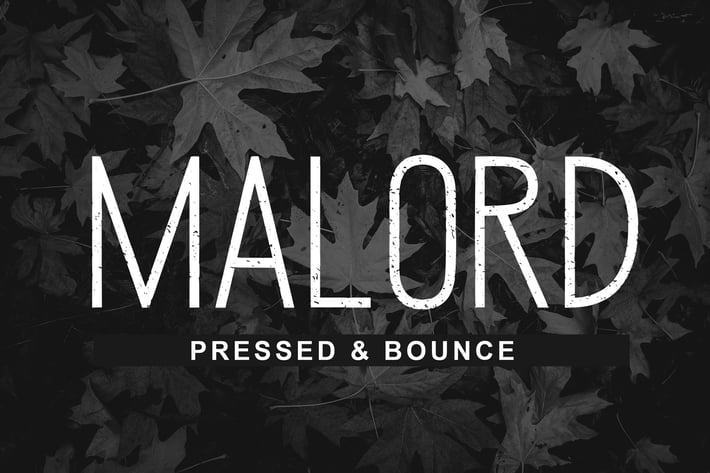
Malord Pressed Font
Malord Pressed is elegant and modern pressed sans serif font. It can easily be matched to an incredibly large set of projects, so add it to your creative ideas and notice how it makes them stand out!